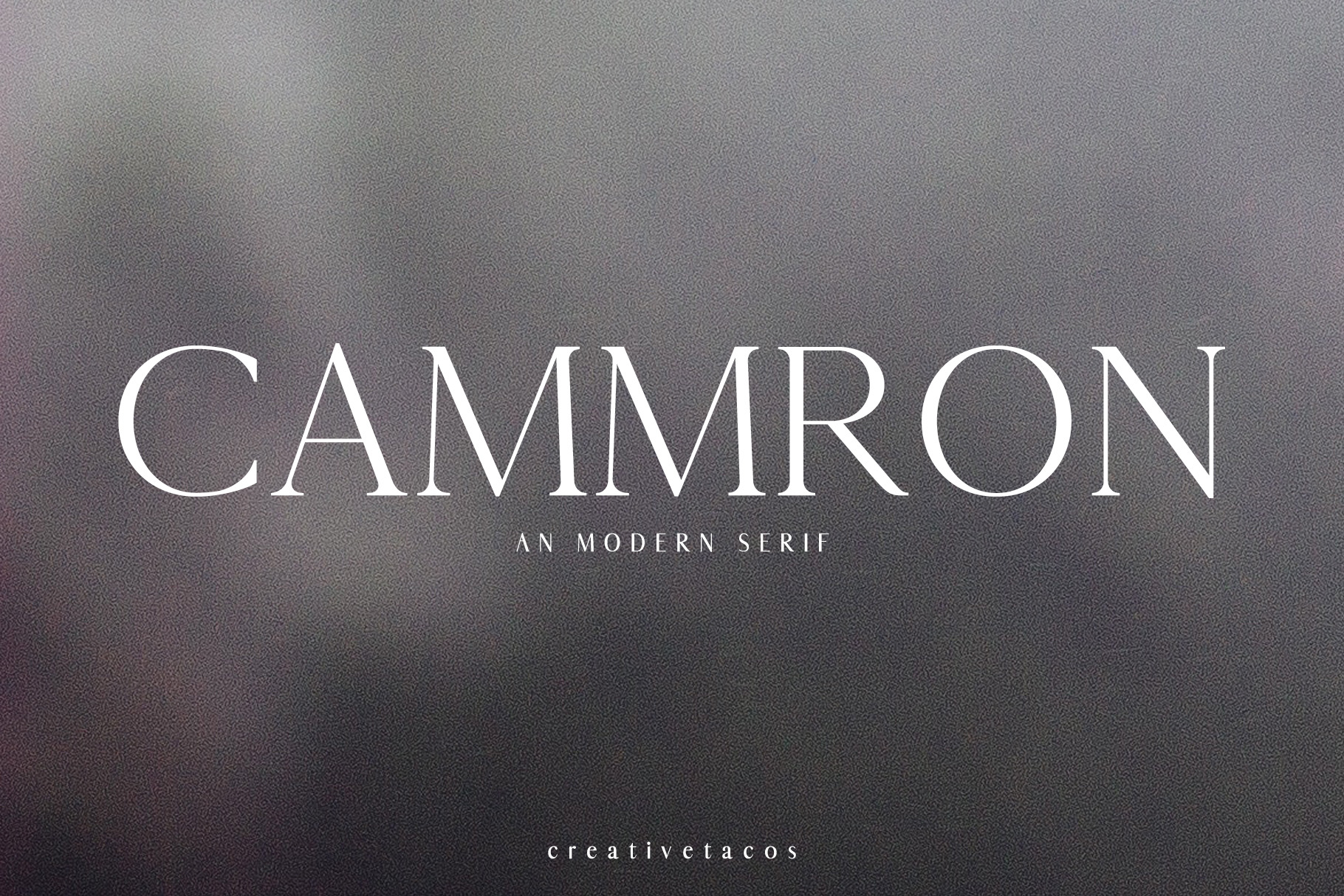
Cammron Serif Font Family
Cammron is a modern dashing serif font family. It includes all basic glyphs with Non-English characters. This font will pair beautifully with the script, signature or handwriting style. It is best for headlines, titles, magazines headings, logo, advertising, posters, quotes, web layouts, invitations, packaging design, books, branding, and nearly any creative design.
- Font Weight: Regular, Light, Round and Bold
Cammron Font Features:
- Uppercase Multilingual Letters
- Lowercase Multilingual Letters
- Non English Characters ( Latin Extended A )